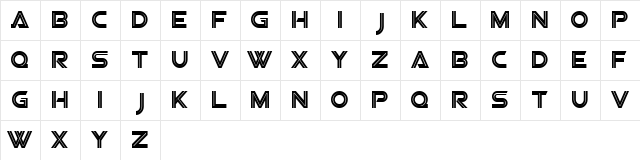
Viper Squadron Regular Free Font
Viper Squadron Regular
Complete Viper Squadron Regular glyph index. Displaying only characters natively supported by Viper Squadron Regular font.
Design Context for Viper Squadron
Viper Squadron is a composed and adaptable typeface that performs quietly and consistently across a wide range of design contexts.